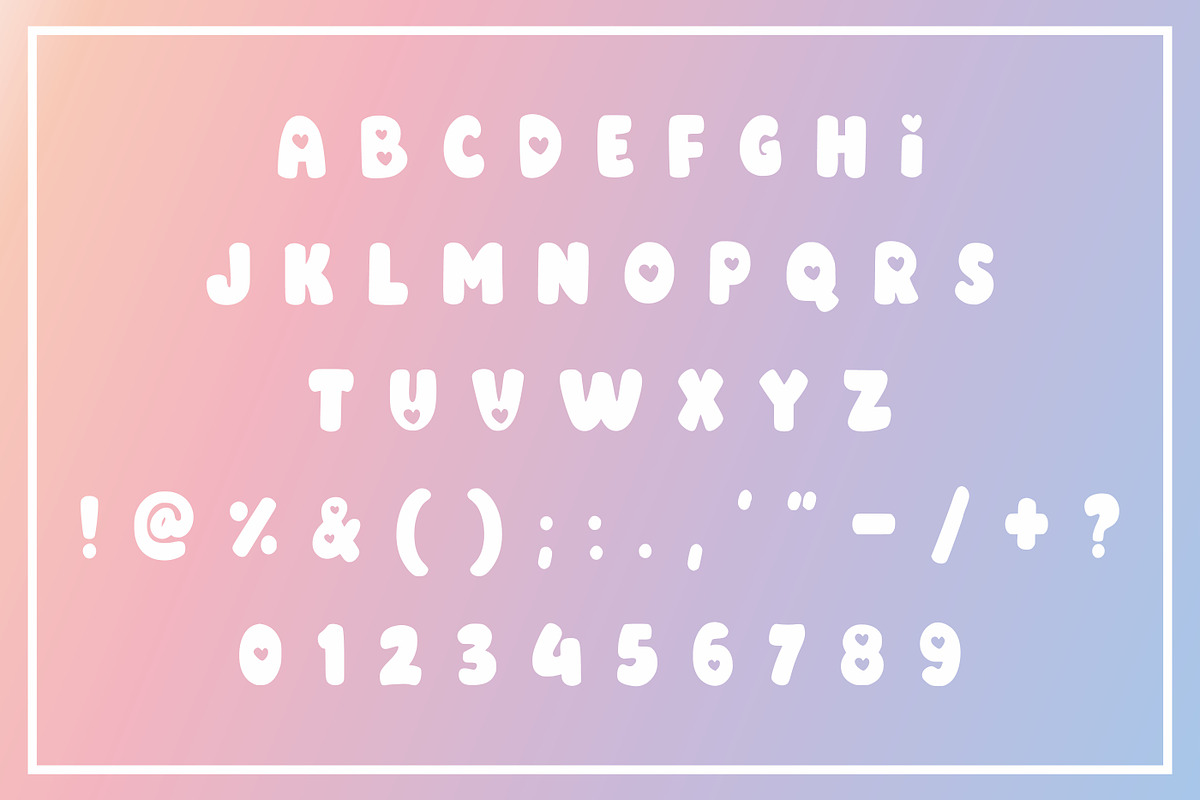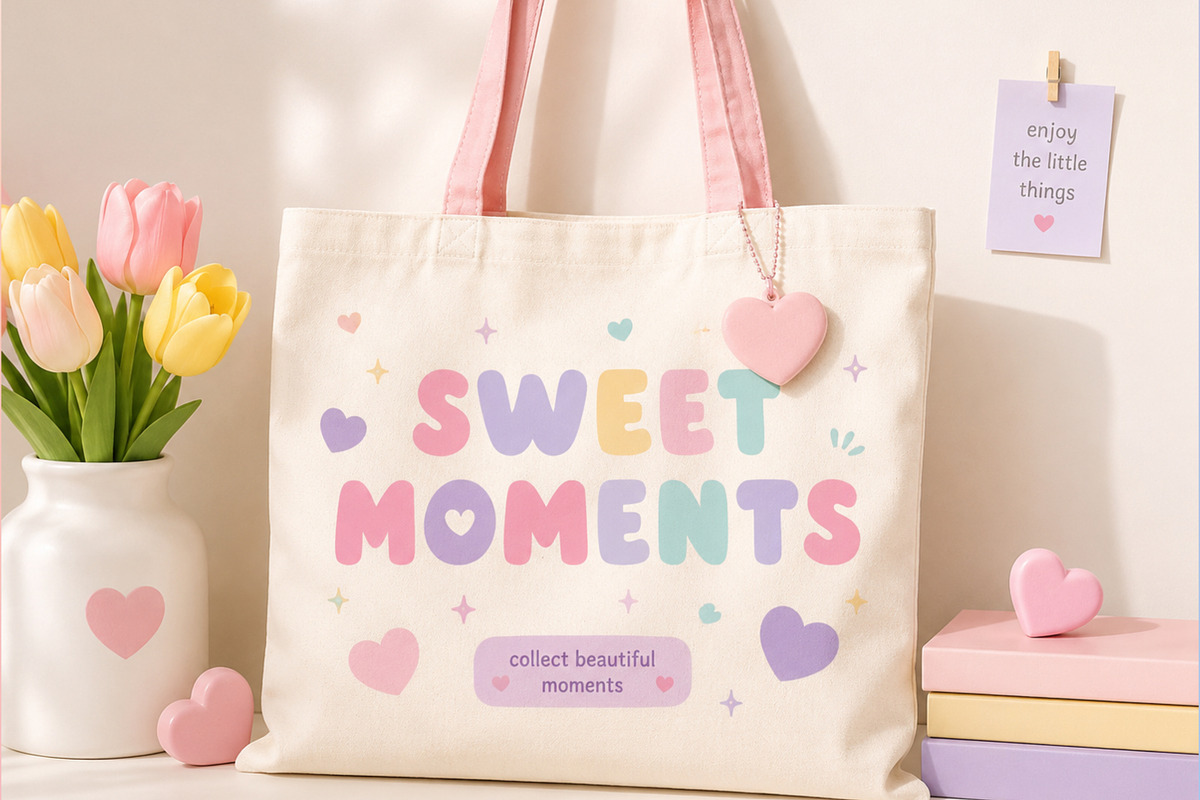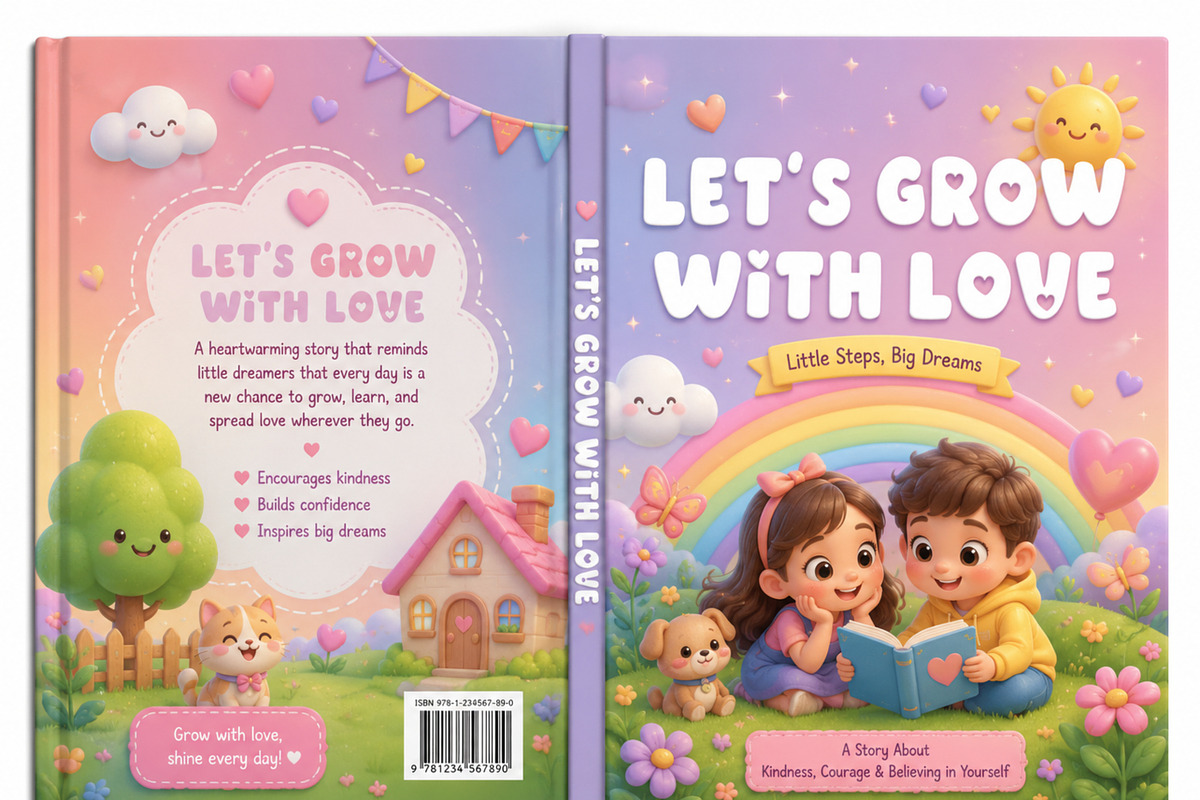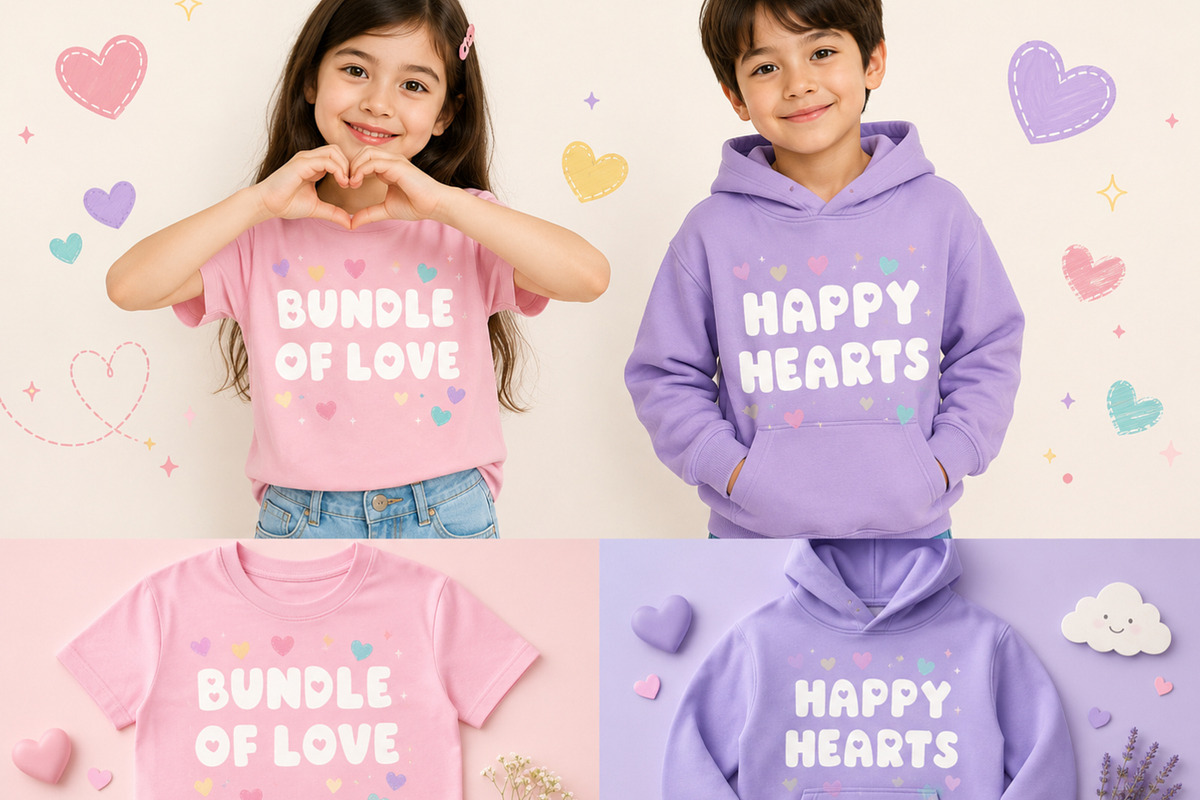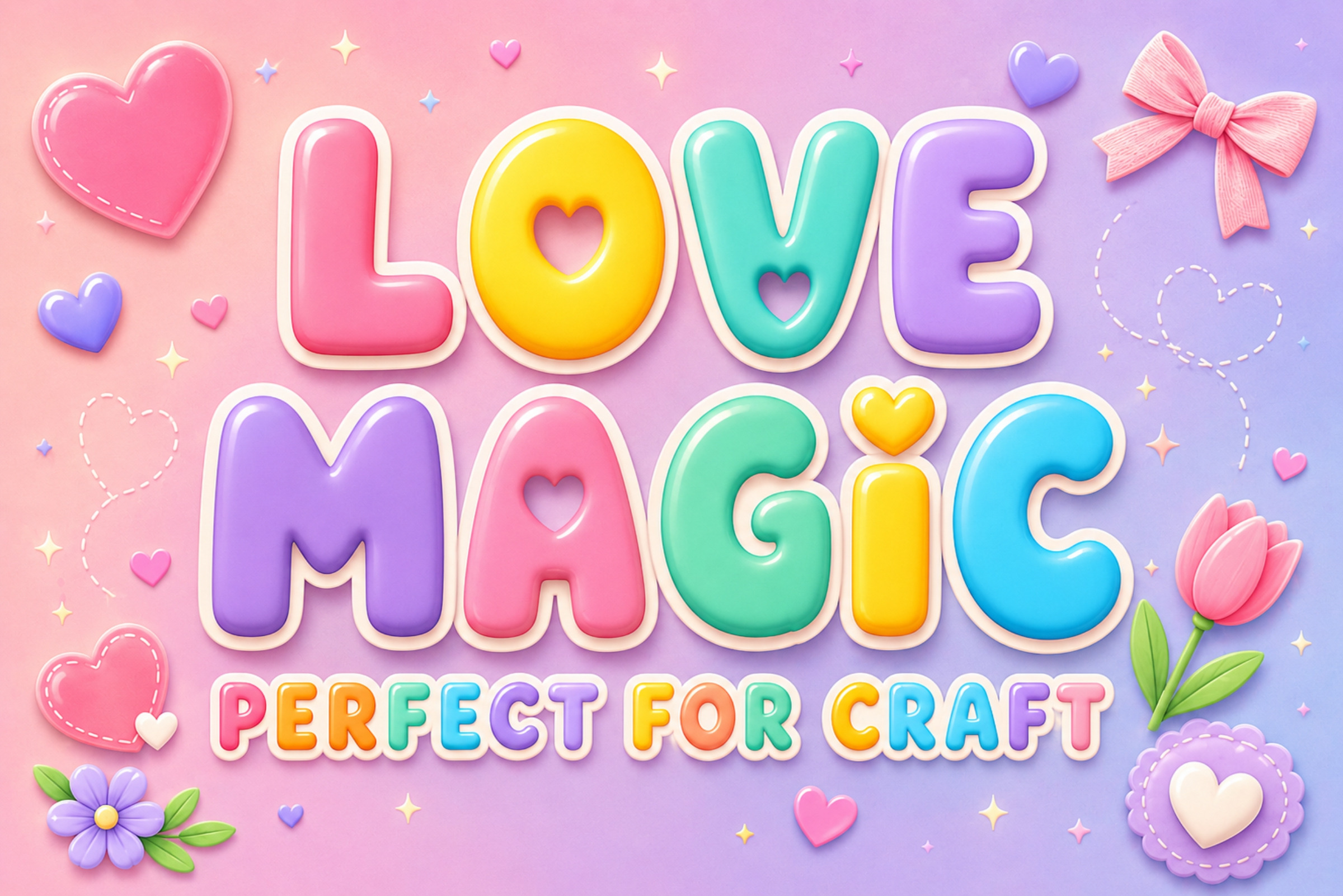
Love Magic – Cute Bubble Font
Spread love and creativity with Love Magic, a charming display font designed with soft rounded characters and delightful heart-inspired details. Its smooth, bubbly appearance creates a warm, friendly, and whimsical feel that makes every design instantly more adorable.
Whether you're designing for Valentine's Day, weddings, baby showers, handmade products, or cute branding, Love Magic adds personality and sweetness to every project. The bold shapes ensure excellent readability while maintaining a fun, handcrafted aesthetic.
Ideal for both digital and print designs, this font works beautifully with colorful themes, pastel palettes, and playful illustrations.
Valentine's Day designs
Wedding invitations
Greeting cards
Baby shower invitations
Nursery decor
Kids branding
Stickers & planners
Cricut & Silhouette projects
Sublimation designs
T-shirts & tote bags
Product packaging
Logo design
Social media posts
Posters & banners
DIY crafts